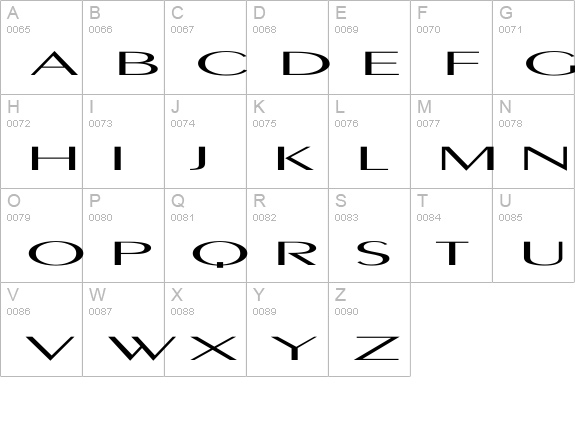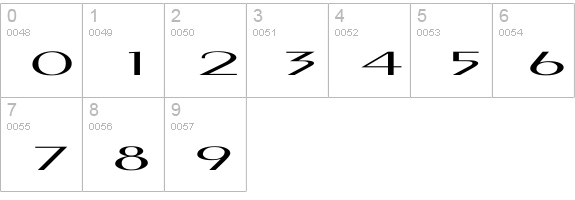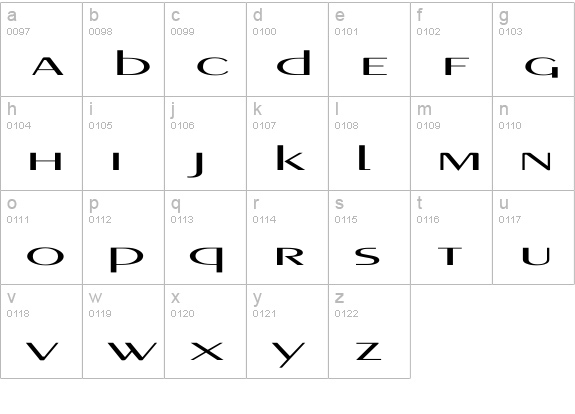
PigNoseTyp Ex Font Details
PigNoseTyp Ex font is a stunning display typeface that will instantly captivate and engage your audience. With its bold and unique design, this font is perfect for adding a touch of personality and flair to any project. Featuring a playful twist on traditional typography, PigNoseTyp Ex font exudes a sense of fun and creativity. Its rounded edges and exaggerated letterforms give it a distinctive and eye-catching appeal. Whether you're designing a poster, logo, or website, this font will make a lasting impression. But what makes PigNoseTyp Ex font even more special is that it is available for free! That's right, you can freely download this amazing font at FontsMarket.com. This means that you can access all of its creative potential without any cost or restrictions. With PigNoseTyp Ex font, you have the freedom to explore endless design possibilities. Its versatility allows you to use it for both playful and professional projects. The wide range of weights and styles ensures that you will find the perfect variation to suit your needs. So why wait? Download PigNoseTyp Ex font today and let your creativity soar. Whether you're a designer, a student, or simply someone looking to add a little extra charm to your next project, this font is a must-have. Visit FontsMarket.com now and experience the joy of using this amazing font for free.